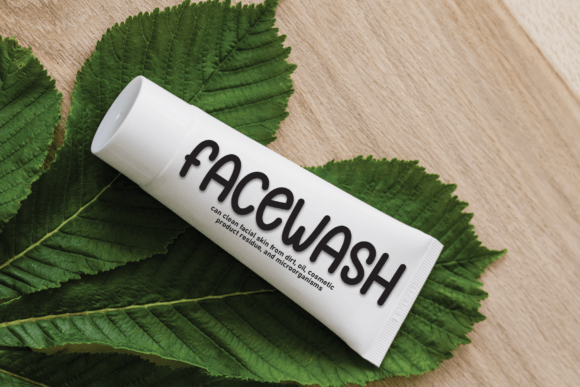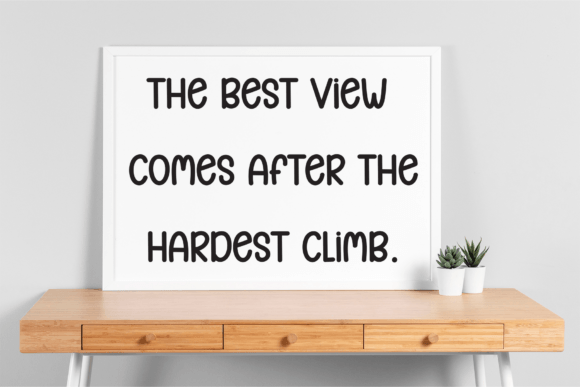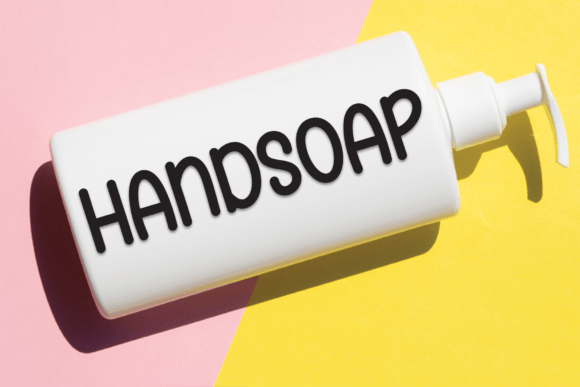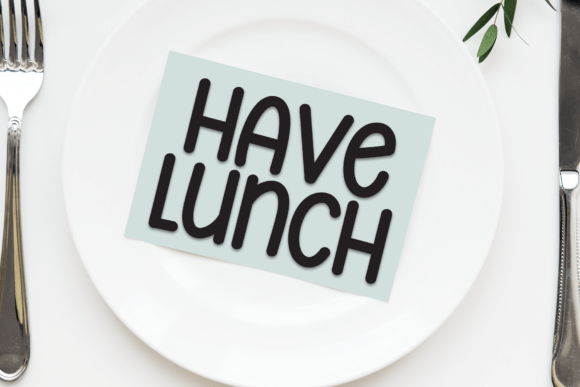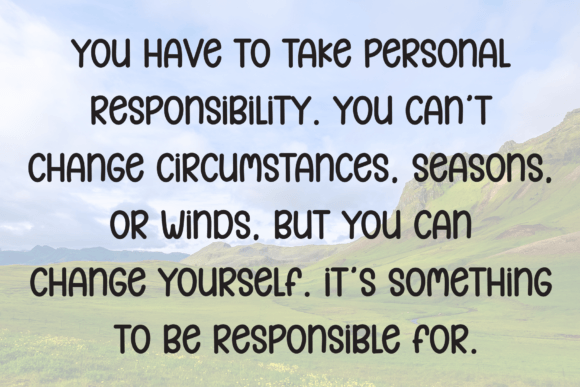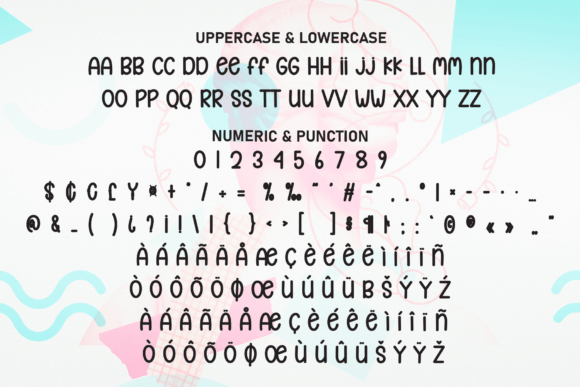
Unleash Your Creativity with Creative Font: The Ultimate Handwritten Display Font
Are you tired of using the same old fonts in your designs? Do you want to add a personal touch to your projects and make them stand out from the crowd? Look no further than Creative Font, a bold, handwritten display font that is sure to take your designs to the next level. With its unique, artistic letters and fun, personal style, Creative Font is perfect for designers and crafters who want to add a hand-crafted feel to their work.
The Story Behind Creative Font
Creative Font is a carefully crafted font that is designed to evoke a sense of creativity and playfulness. Its unique, handwritten letters are perfect for making a statement and adding a personal touch to your designs. Whether you’re working on a logo, a poster, or a social media graphic, Creative Font is the perfect choice for anyone who wants to add a touch of personality to their work.
Key Features of Creative Font
- Bold and Eye-Catching: Creative Font is a bold, attention-grabbing font that is sure to make your designs stand out.
- Handwritten Style: With its unique, handwritten letters, Creative Font has a fun and personal style that is perfect for adding a touch of personality to your designs.
- Artistic Letters: Each letter in Creative Font has been carefully crafted to be unique and artistic, giving your designs a truly one-of-a-kind feel.
- Perfect for Display Text: Creative Font is designed specifically for display text, making it perfect for headlines, titles, and other large text elements.
Uses for Creative Font
Creative Font is a versatile font that can be used in a wide range of design projects, including:
- Logos and Branding: Use Creative Font to create a unique and memorable logo that reflects your brand’s personality.
- Posters and Flyers: Add a touch of personality to your posters and flyers with Creative Font’s bold, handwritten style.
- Social Media Graphics: Use Creative Font to create eye-catching social media graphics that are sure to grab attention.
- Invitations and Cards: Add a personal touch to your invitations and cards with Creative Font’s unique, artistic letters.
Tips for Using Creative Font
Here are a few tips for getting the most out of Creative Font:
- Use it Sparingly: Because Creative Font is a bold, attention-grabbing font, it’s best to use it sparingly. Use it for headlines and titles, and a more subtle font for body text.
- Experiment with Colors: Creative Font looks great in a wide range of colors, so don’t be afraid to experiment and find the perfect color for your design.
- Pair it with Other Fonts: Creative Font pairs well with a wide range of other fonts, so feel free to get creative and try out different combinations.